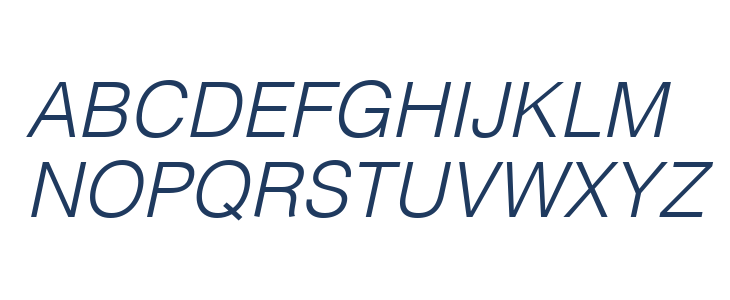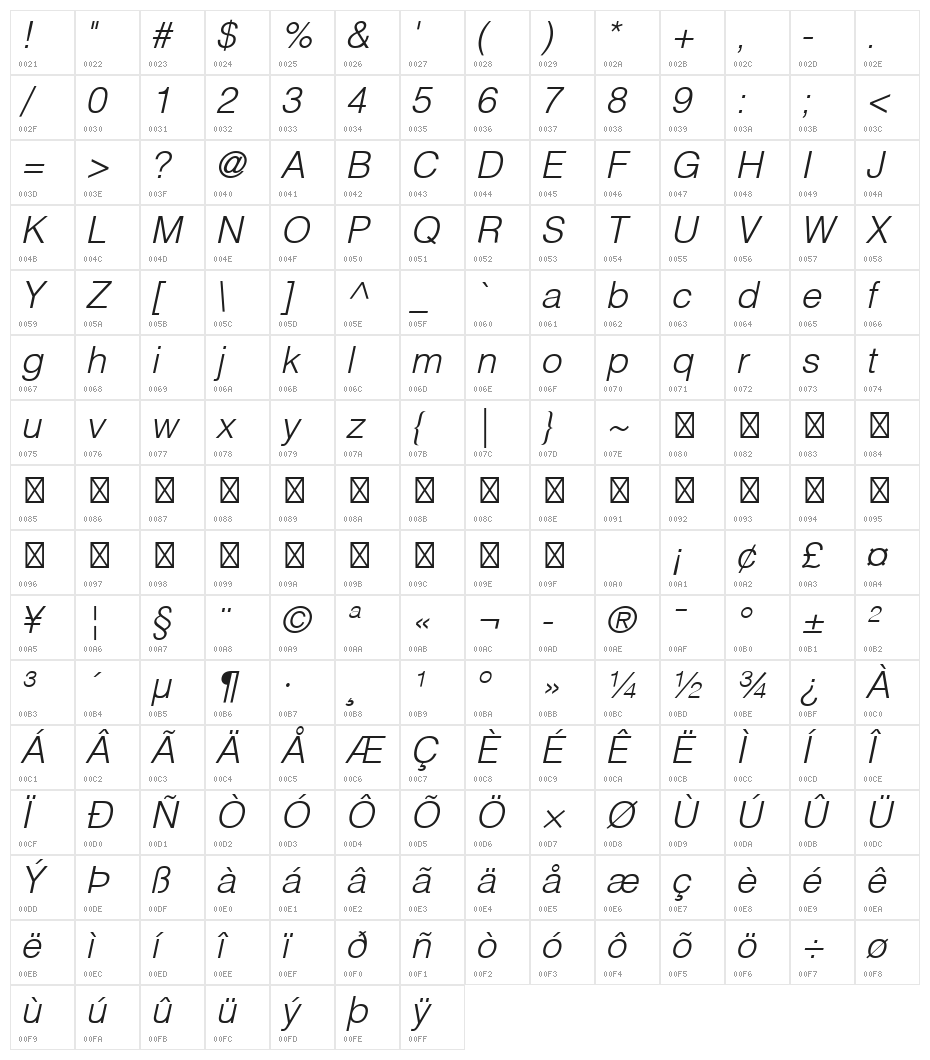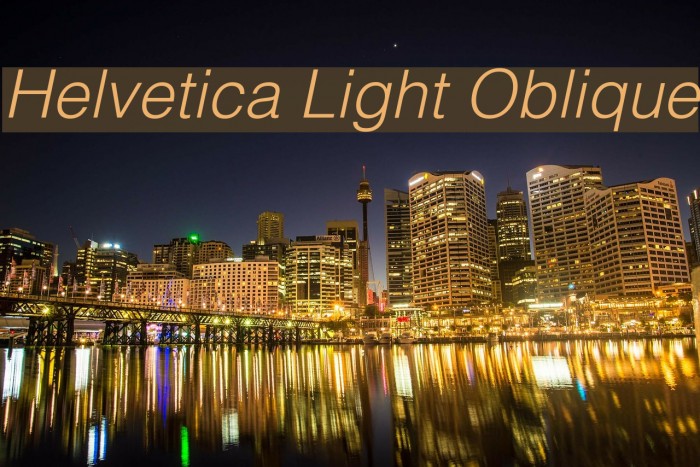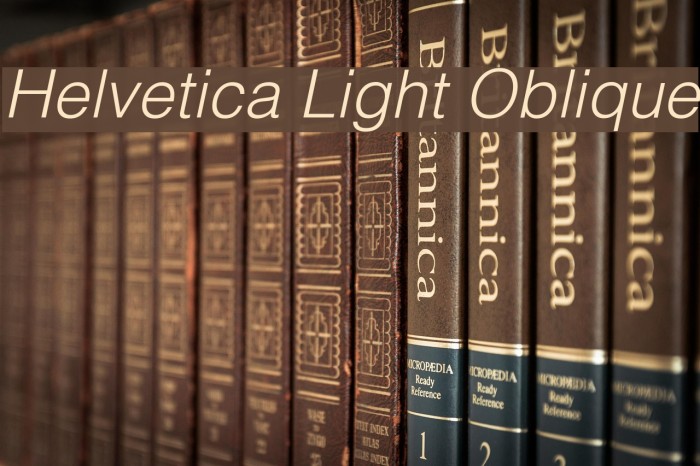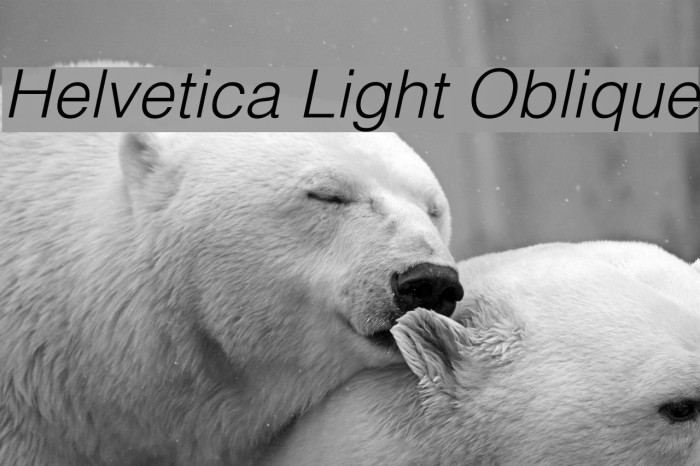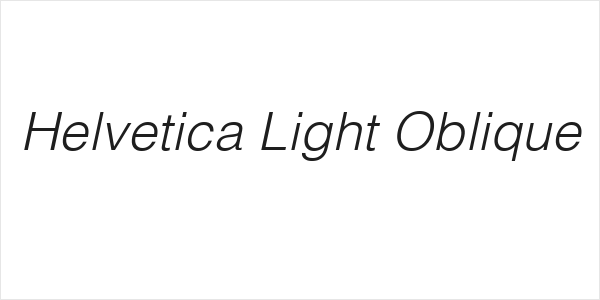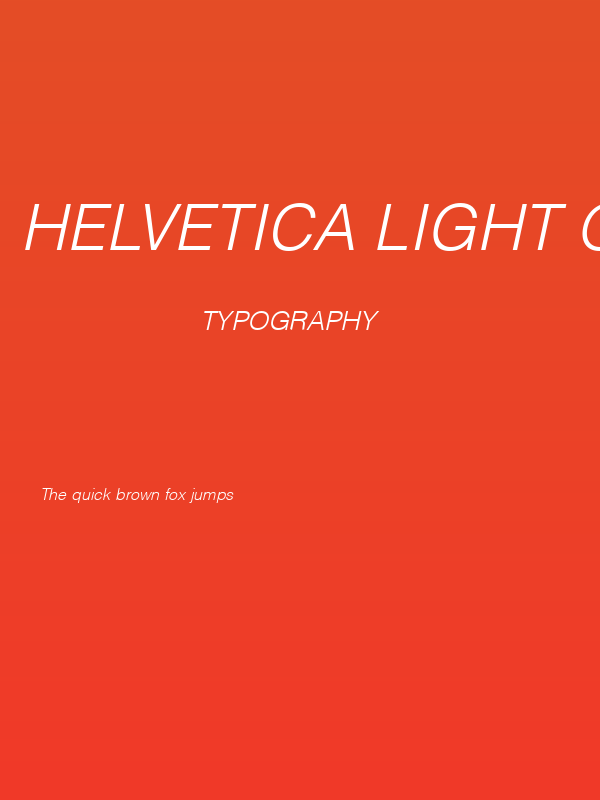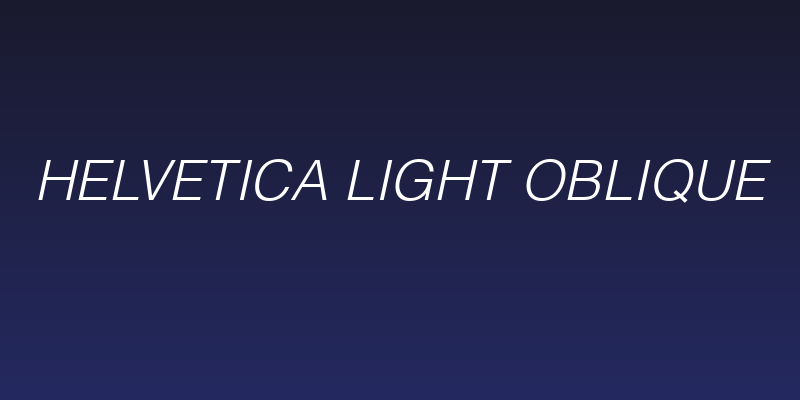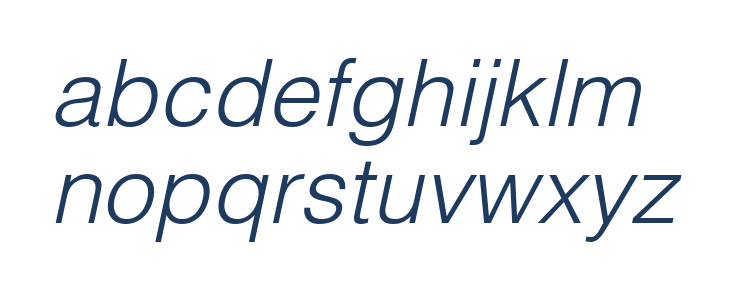
Helvetica Light Oblique Font
Helvetica Light Oblique Description
This font features a clean and modern design with a light weight and oblique style. The characters are evenly spaced with a slight slant, giving it an elegant and sophisticated appearance. The sans-serif design ensures readability and versatility, making it suitable for a wide range of applications. The font maintains a consistent stroke width, contributing to its sleek and minimalist aesthetic. The overall look is professional and contemporary, ideal for projects that require a touch of modernity and clarity.